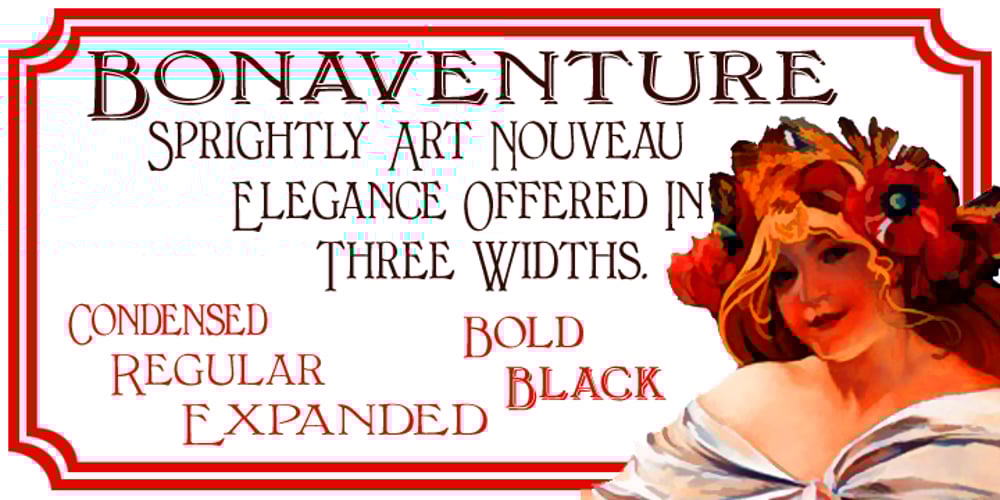
Bonaventure Font Family was designed by Paul James Lloyd and published by Greater Albion Typefounders. Bonaventure contains 9 styles and family package options. Bonaventure is a Roman display family full of the spirit of the Art Nouveau era, and joins our popular related group of families which also includes Bonning>, Bonnington and BonaVia. Three weights are offered, including a shadowed black form, in a choice of three widths: regular, condensed and Expanded. It’s the ideal family for signage with a period feel, as well as for posters, headings and certificates. A combination of Bonaventure with Bonning and its other related faces will bring a harmonious design ethos to any project.